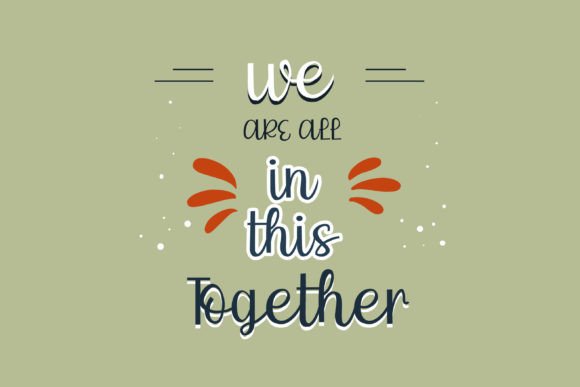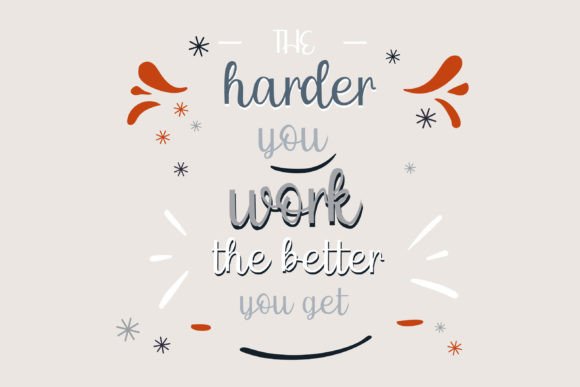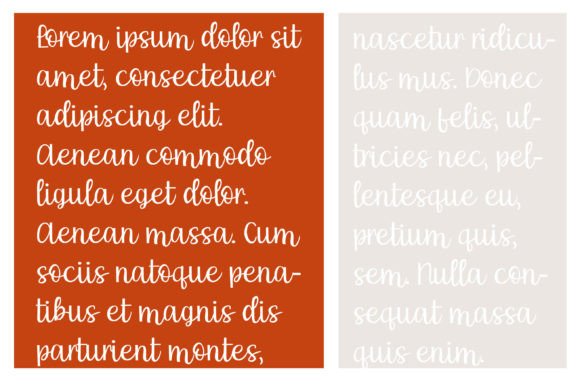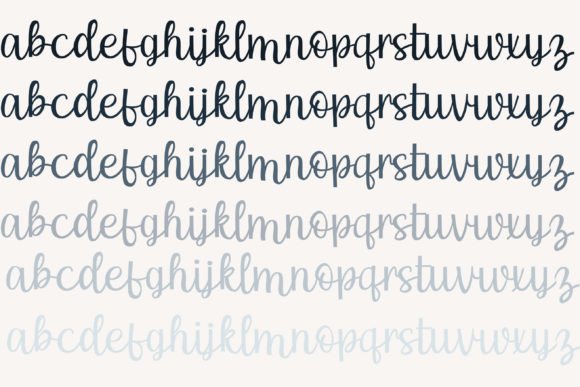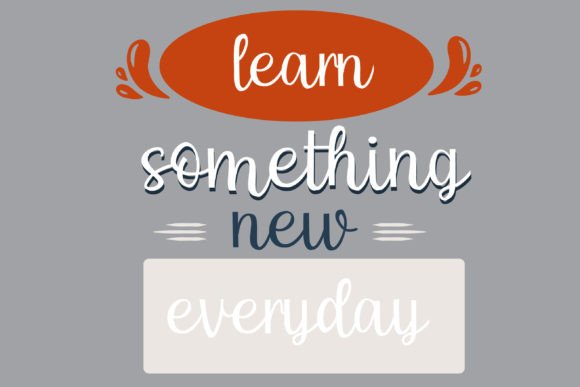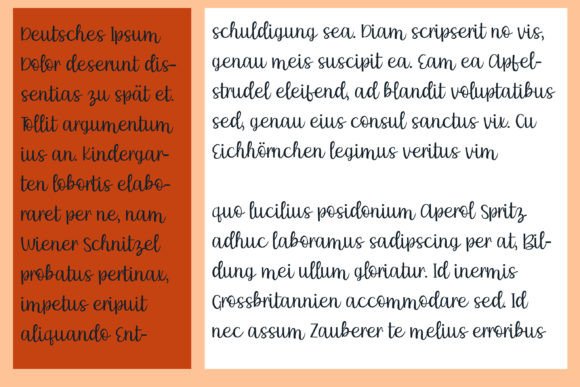
Introduction to Papyrology Font
This stunning handwritten font exudes elegance and sophistication with its fluid strokes and delicate curves.
Each letter is carefully crafted with impeccable attention to detail, creating a timeless and refined aesthetic The intricate yet legible design is perfect for invitations, branding, and other high-end applications.